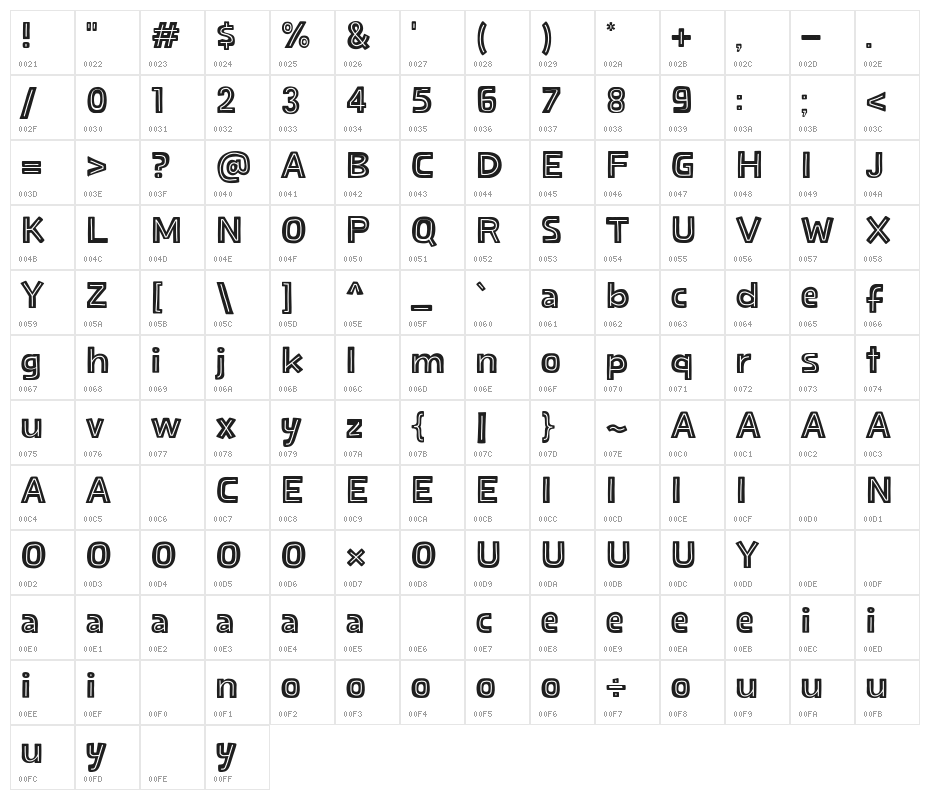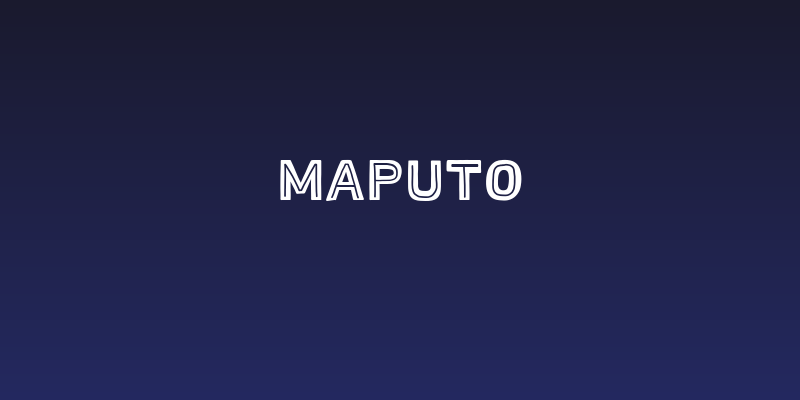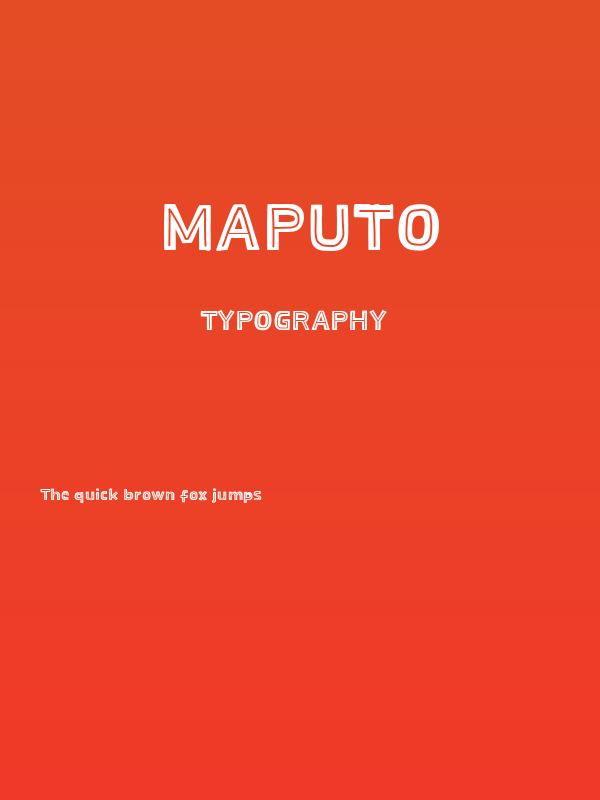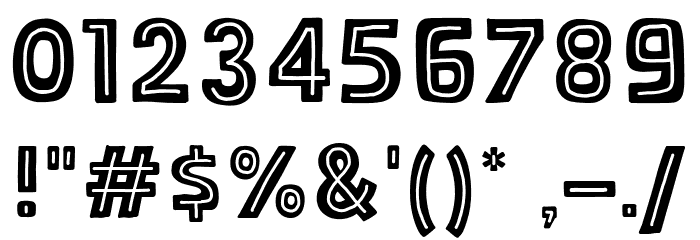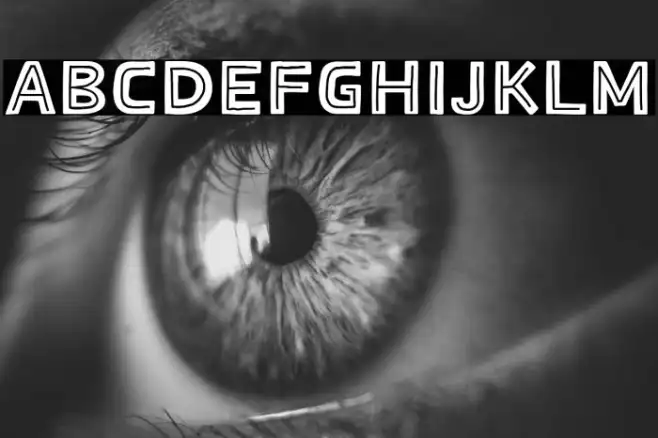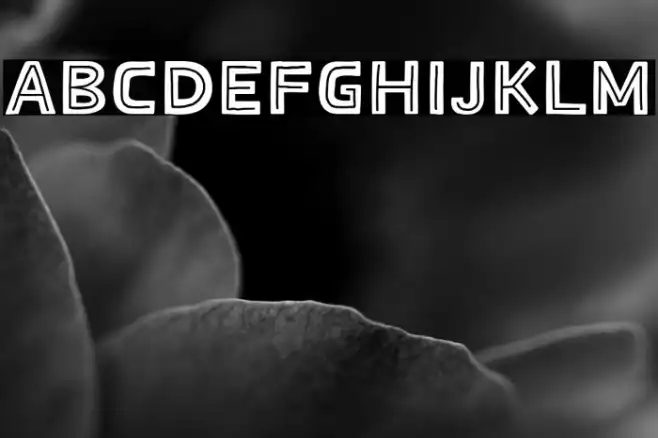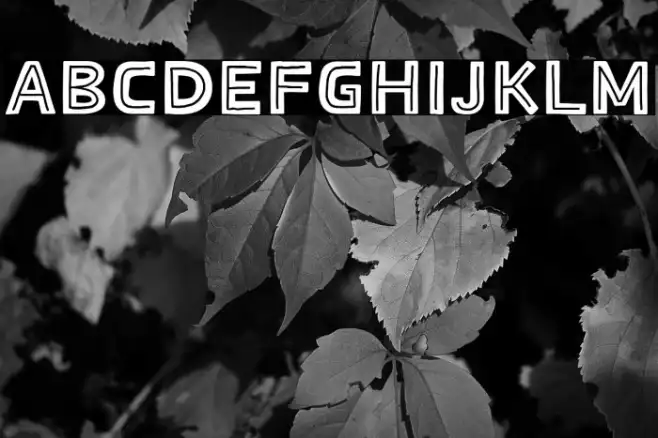
Maputo Font
Maputo Description
This font features a bold, outlined style with a modern and playful aesthetic. The uppercase and lowercase letters are consistent in their geometric design, providing a sense of uniformity and balance. The numbers and special characters maintain the same outlined characteristic, ensuring a cohesive look across all glyphs. The strokes are thick and evenly spaced, giving the font a strong presence. Its unique style makes it stand out, while still being legible and versatile for various design applications.
| Proposed Projects | Ideal for branding, posters, headlines, and any design project that requires a bold and eye-catching typeface. |